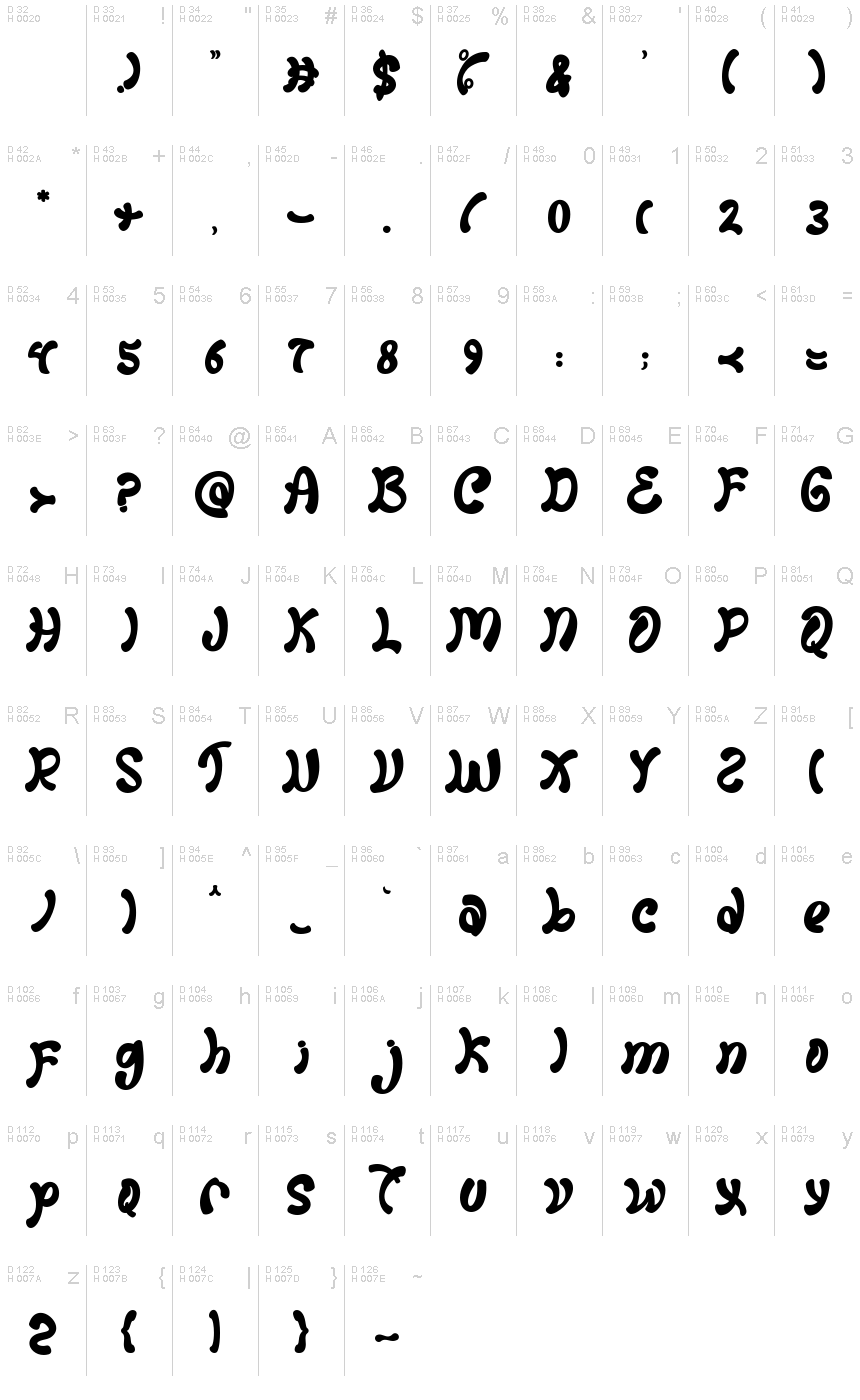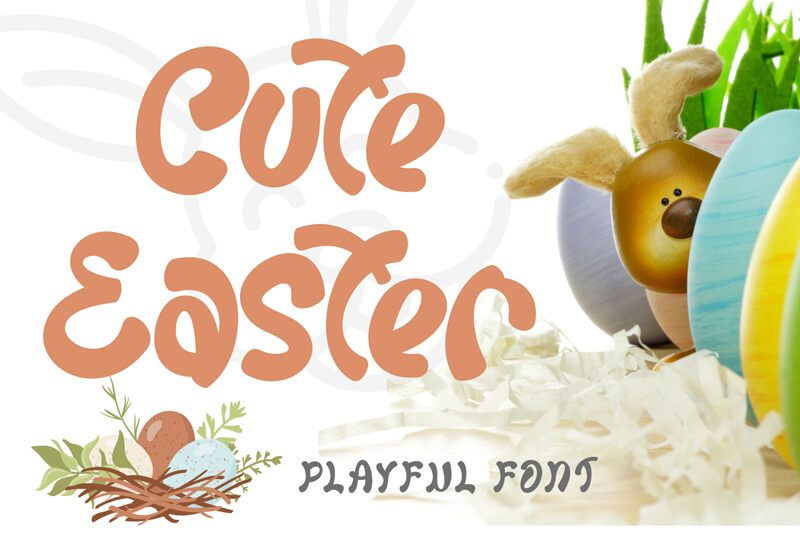
"Cute Easter" by Yoga Letter is a bold, cartoon-inspired display font that exudes a playful and whimsical charm.
With its exaggerated, rounded letterforms and striking, black-and-white aesthetic, this font immediately catches the eye and evokes a sense of playfulness and joy. The bold weight and confident strokes give the font a strong presence, making it well-suited for eye-catching titles, headings, and accent text. Whether used for Easter-themed designs, children's illustrations, or a touch of lighthearted flair in branding and packaging, "Cute Easter" offers a delightful and distinctive typographic solution.
Its versatility and visual impact make it a compelling choice for designers seeking to infuse their projects with a touch of endearing, hand-drawn character.